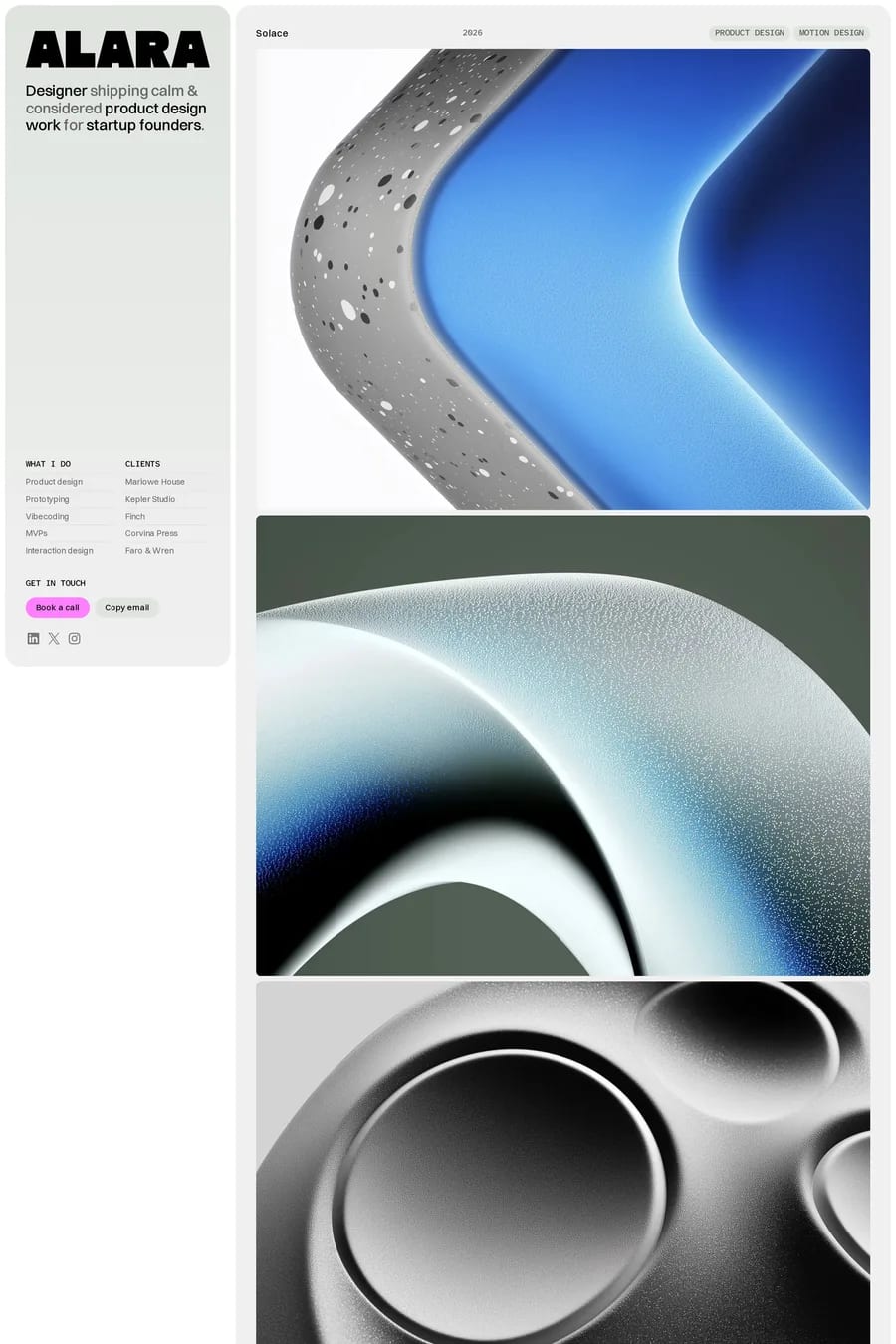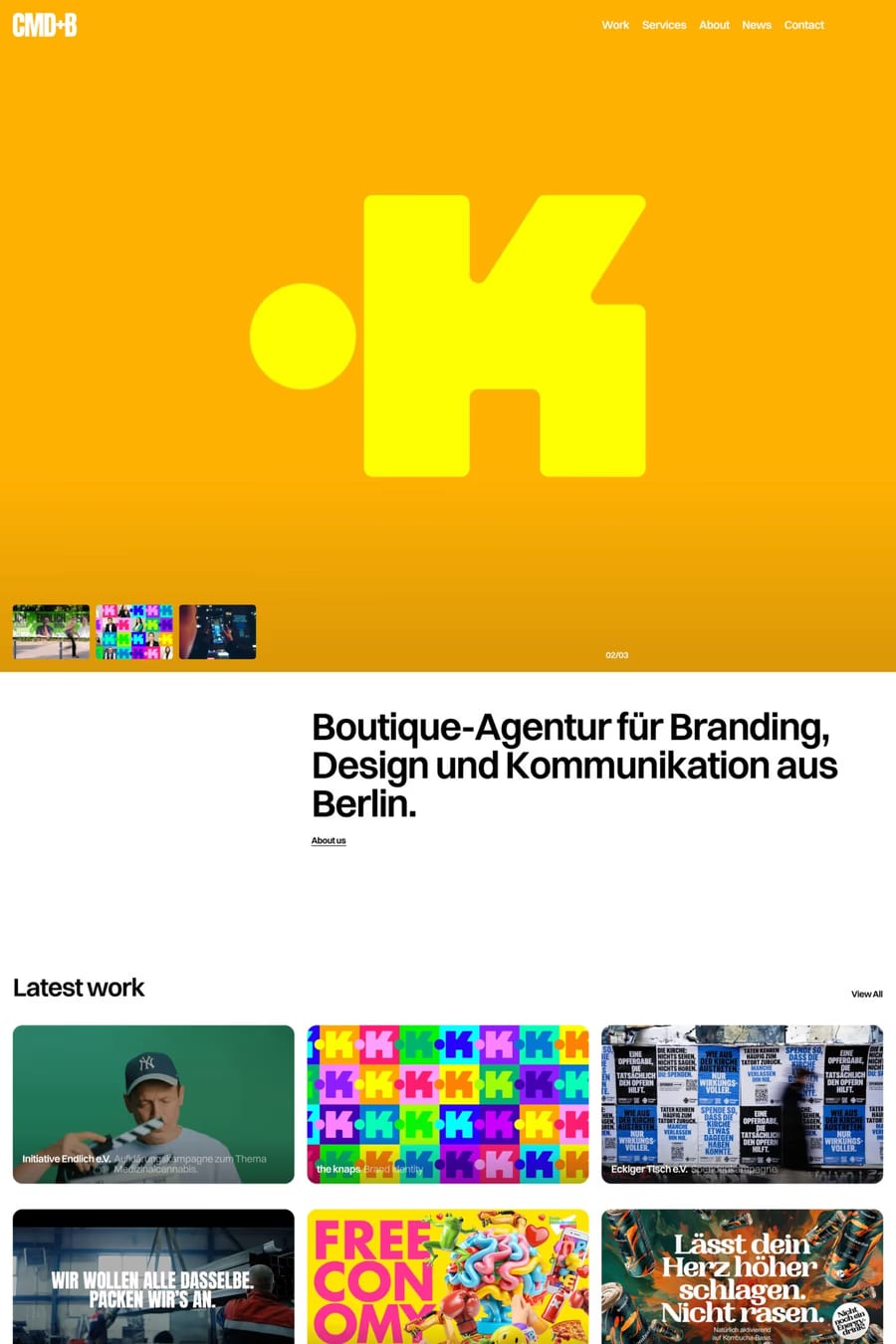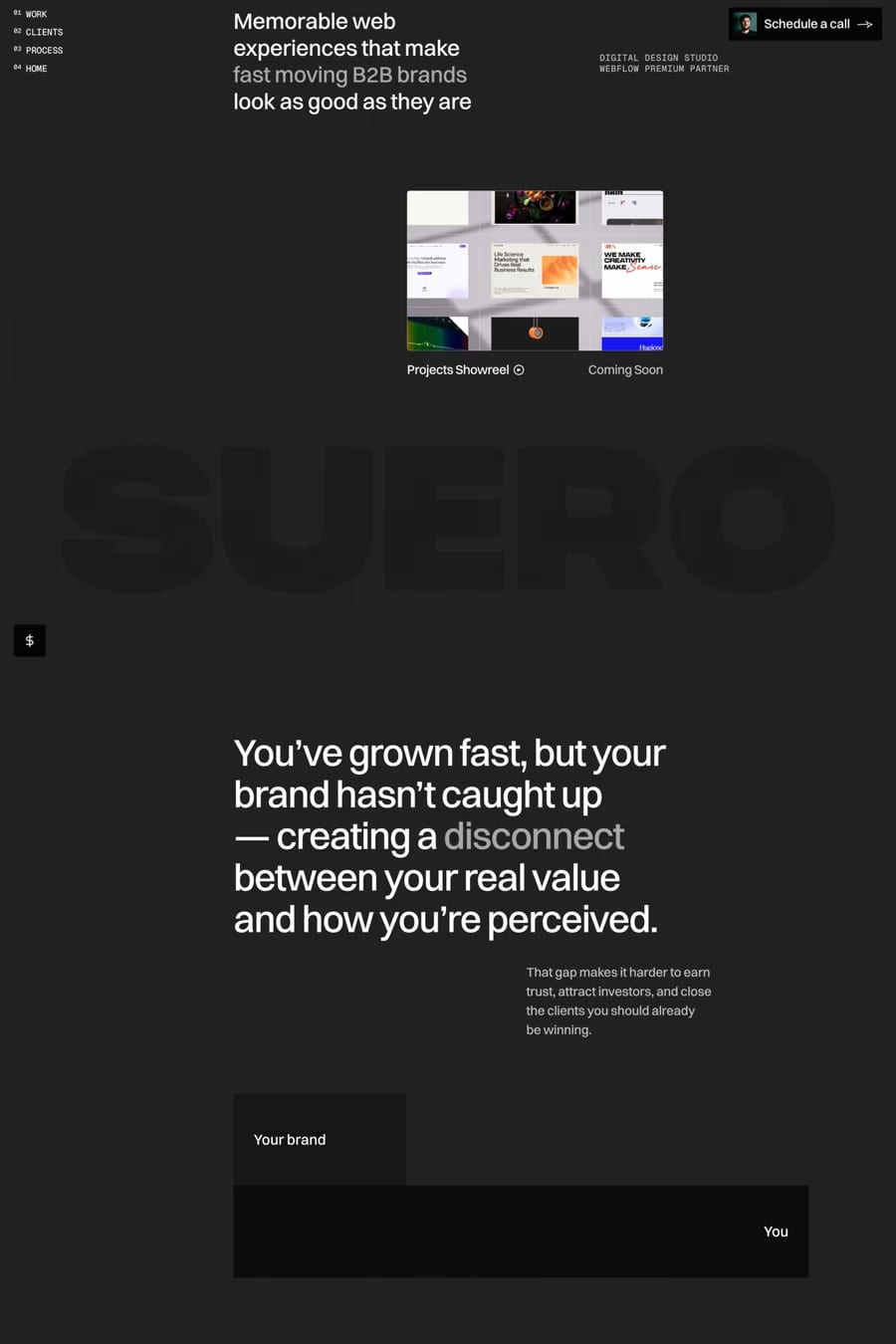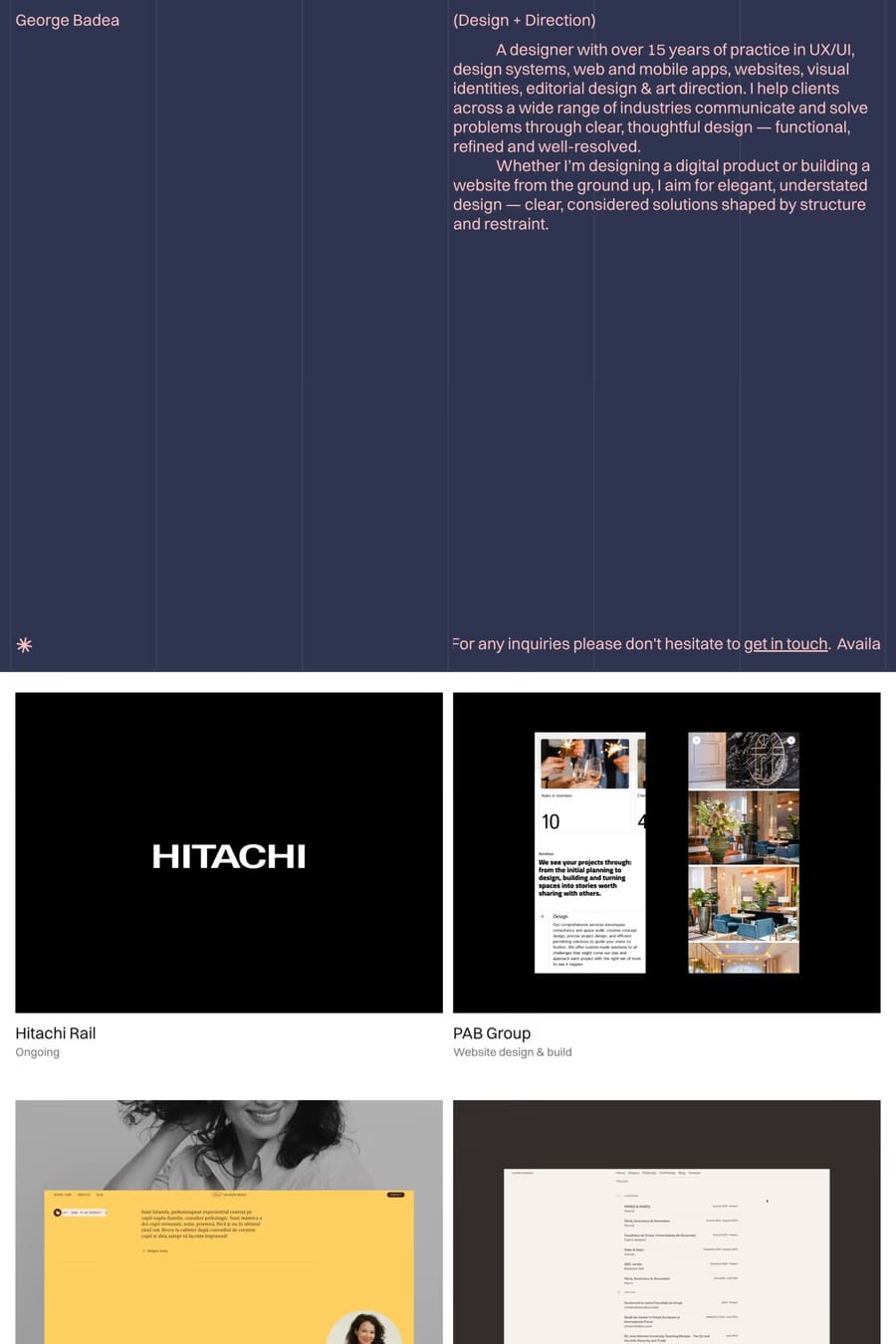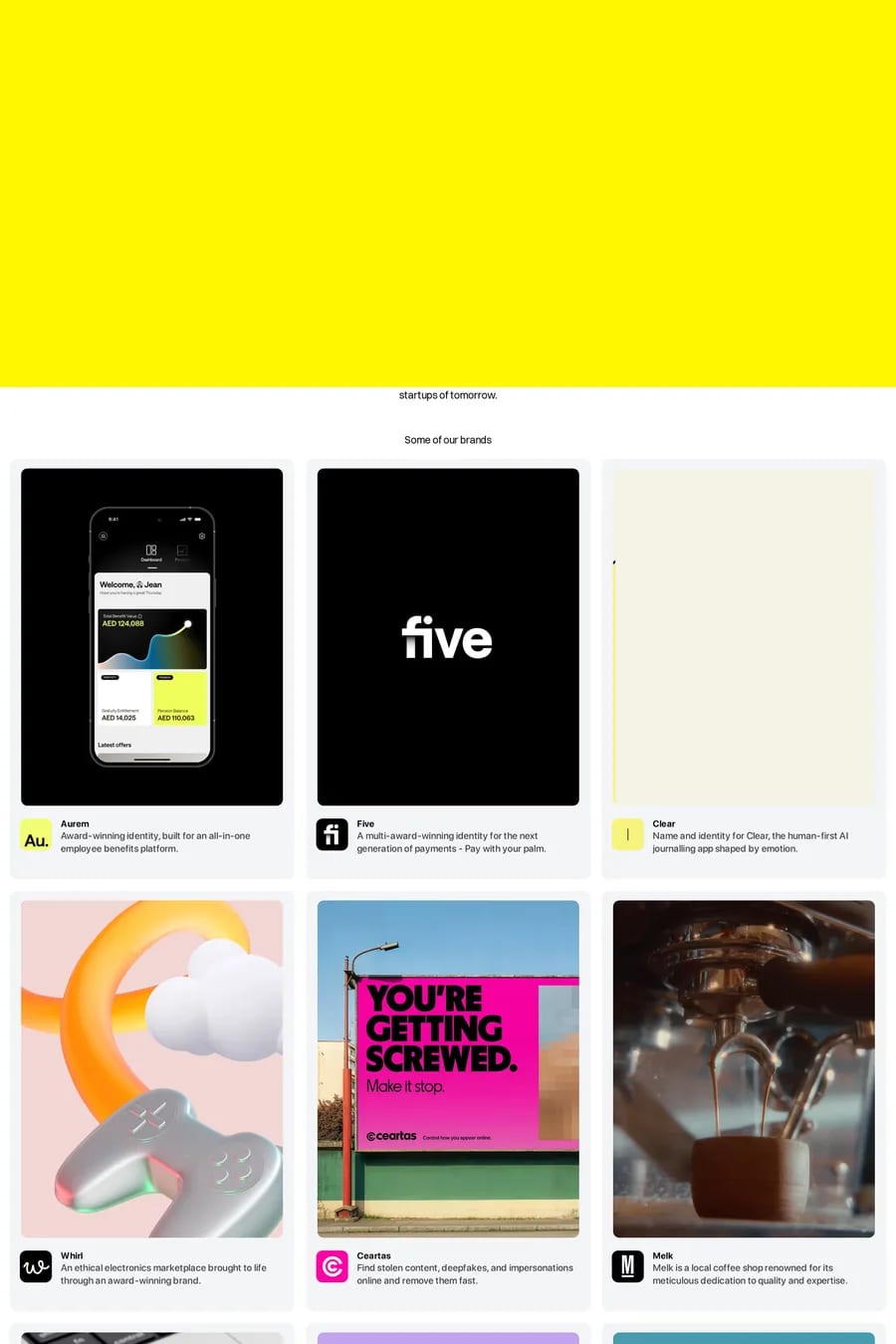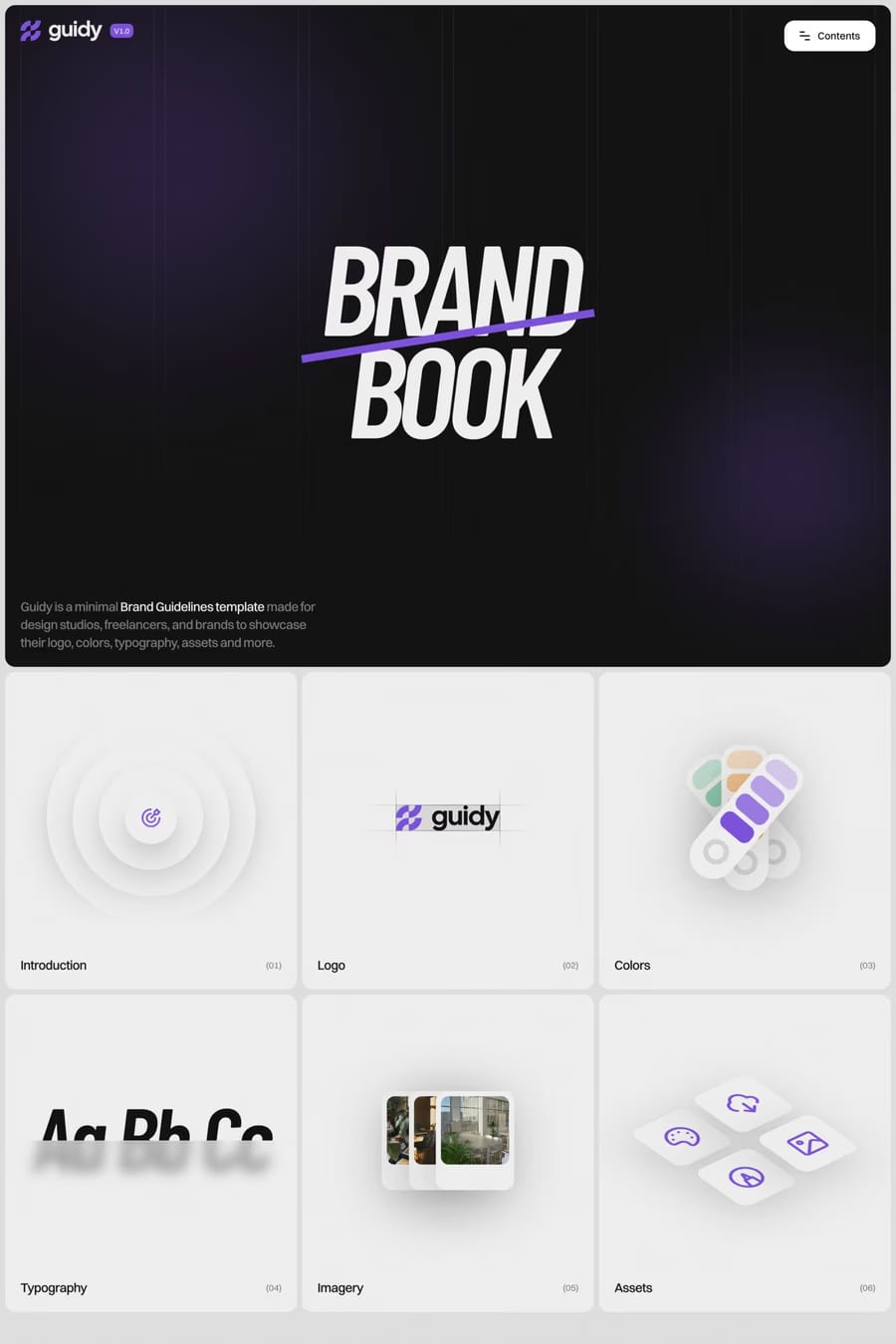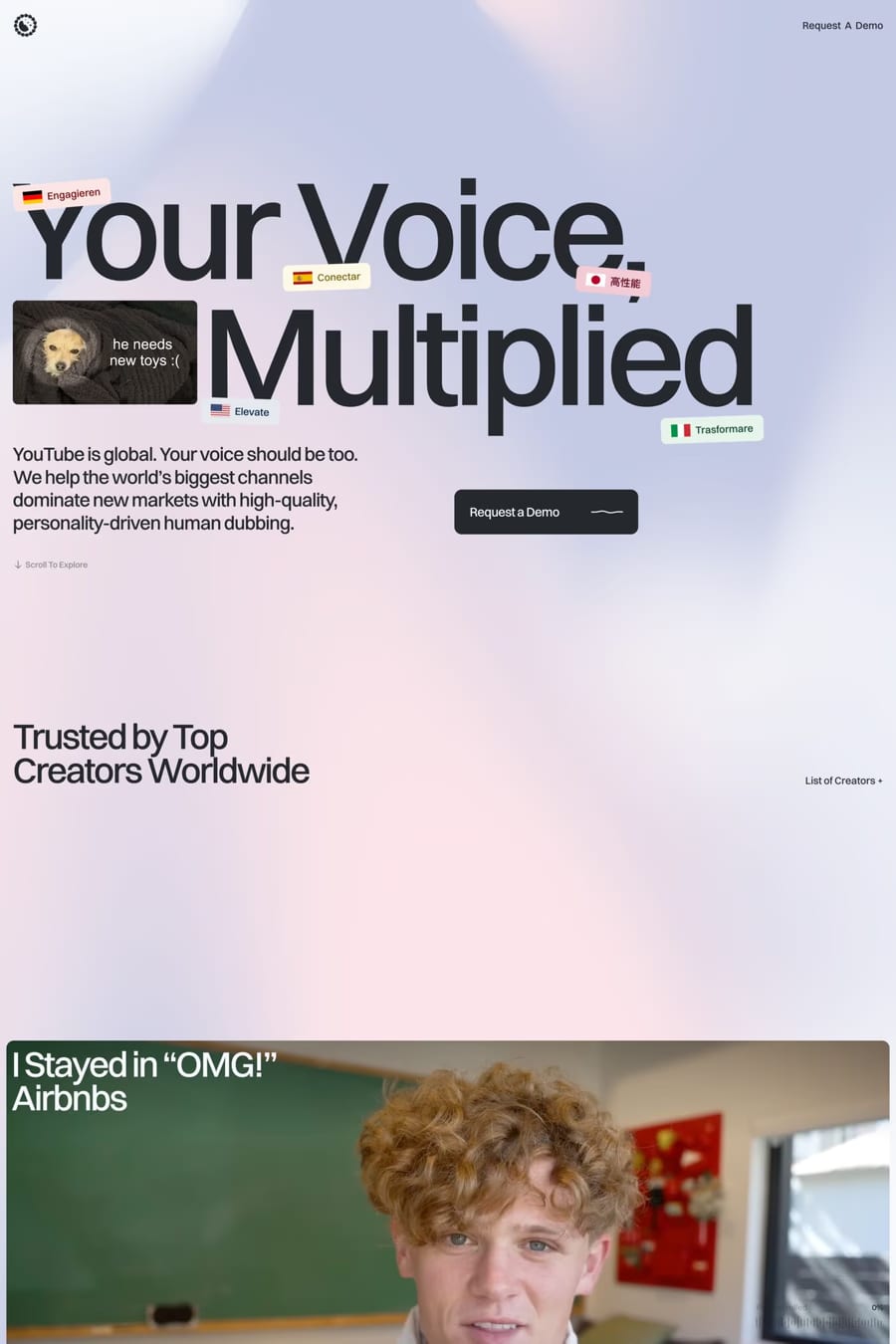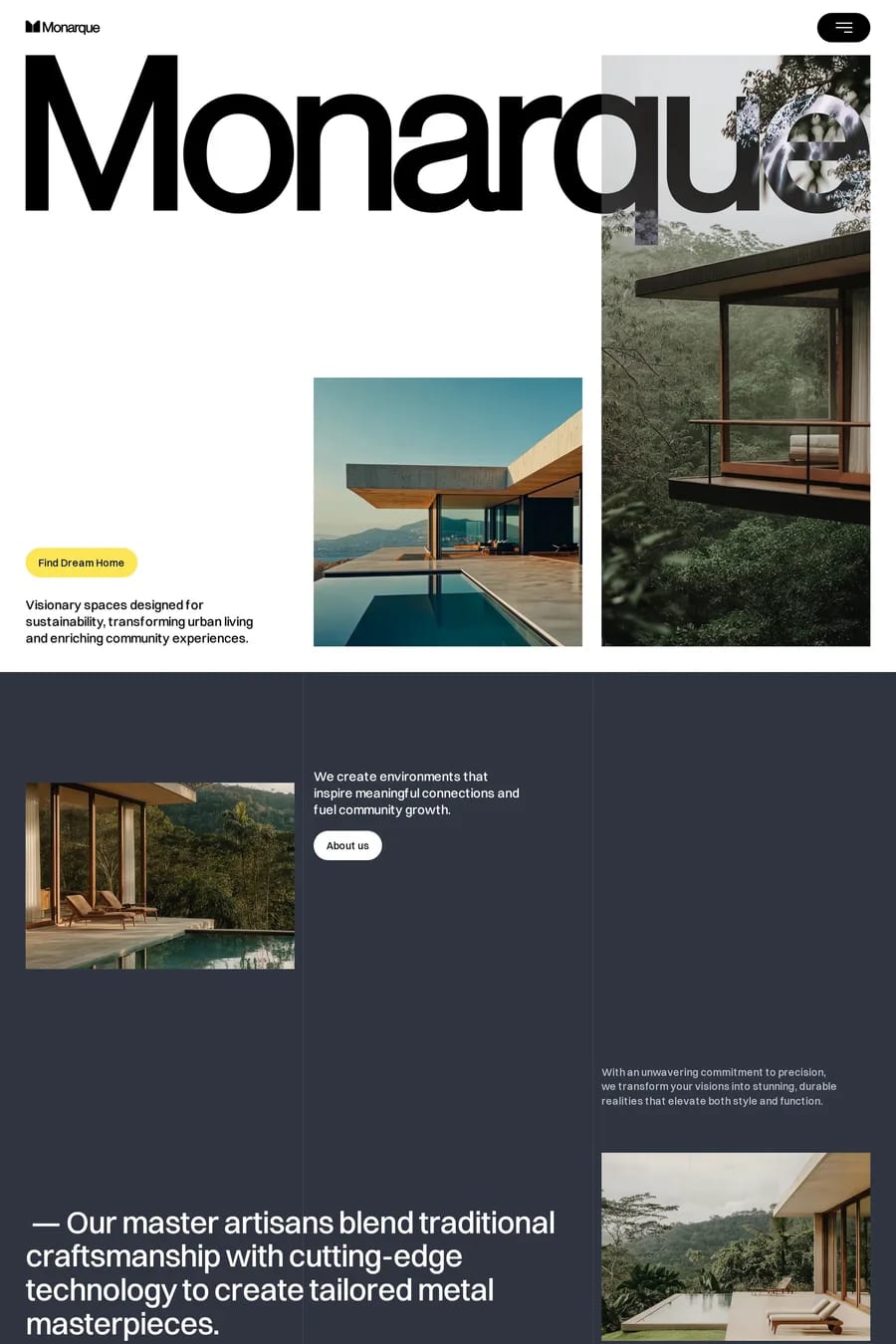
Switzer is a sans-serif typeface from Indian Type Foundry.
Switzer is a Latin-script typeface with 18 styles; nine of those are italics. The family is a neo-grotesk design. Switzer’s appearance is classic and timeless; it might resemble earlier typefaces, but it is a new design made for our time. While the neo-grotesk style didn’t originate in Switzerland per se, some of the most-famous neo-grotesk come from Swiss designers.